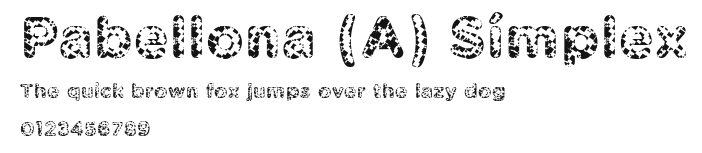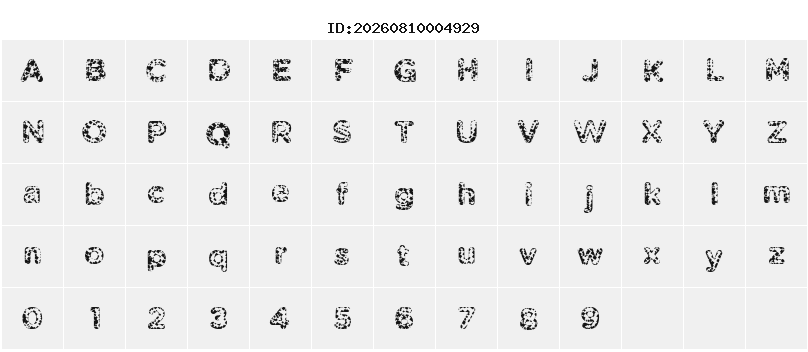
• Font Name: Pabellona (A) Símplex
• Designer: Fernando Haro
• Manufacturer: deFharo
About Pabellona (A) Símplex.ttf
Pabellona (A) Símplex.ttf is a modern, elegant sans-serif font designed for ultimate readability and visual harmony. Perfect for branding, headlines, web design, and print materials.